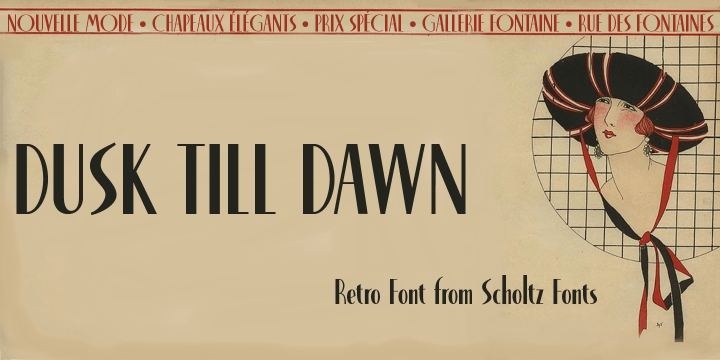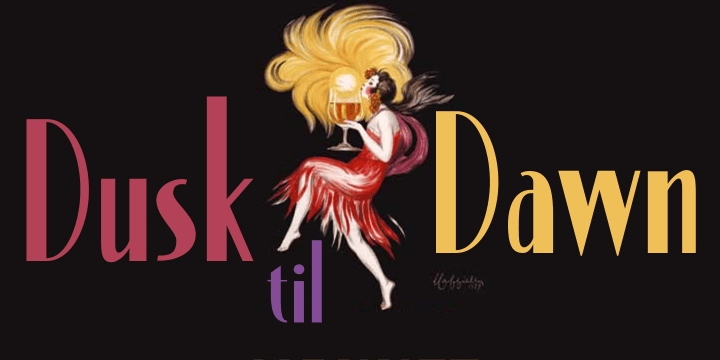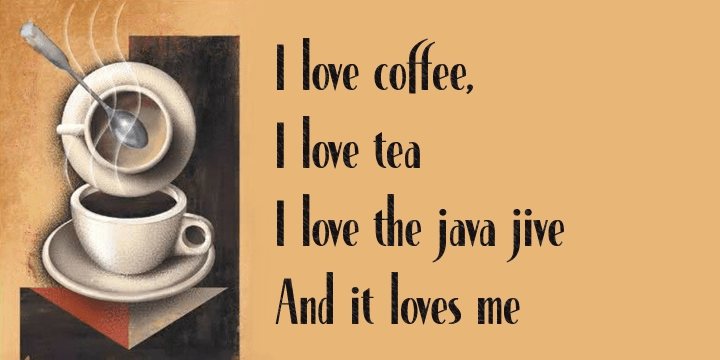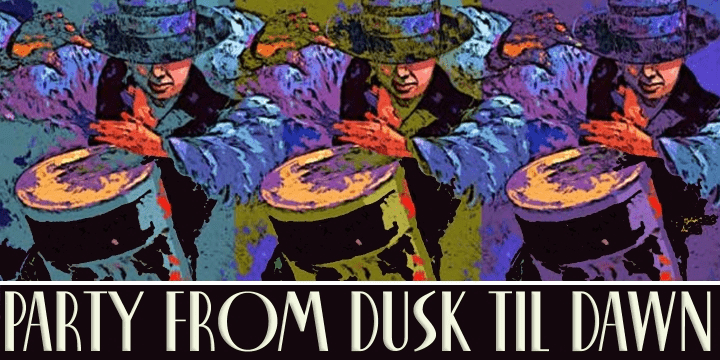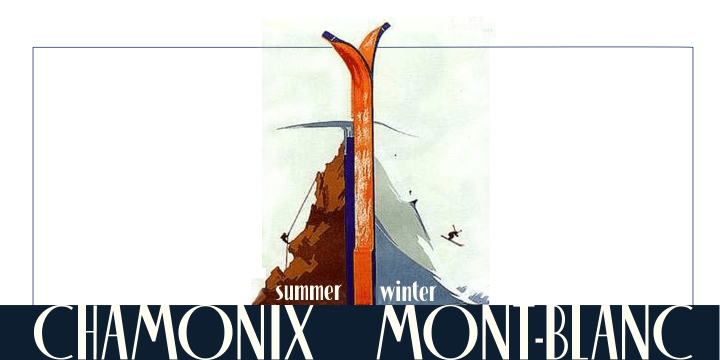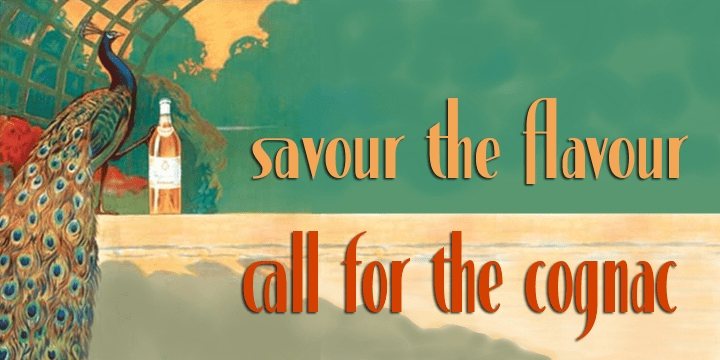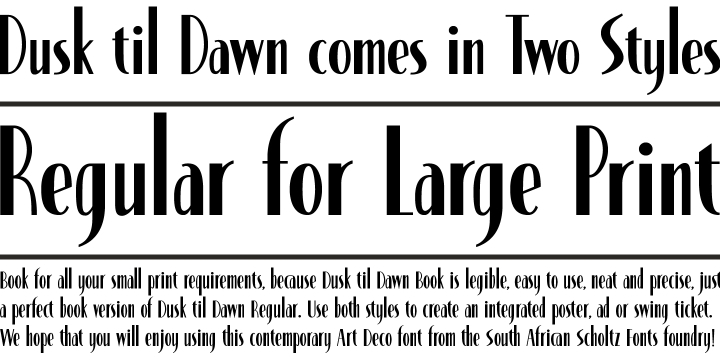
Dusk Til Dawn
Buy NowAs with Nocturne, Dusk til Dawn recalls the romantic, sophisticated Zeitgeist of the early 20th century, that nostalgic time ?between the wars?. It as a number of attractive ligatures and upper-case alternates.
I have used Nocturne as a basis for Dusk til Dawn, given the font really bold down-strokes, reduced the width of some upper case characters and changed the shape of many lower case characters.
Dusk til Dawn Regular, which uses the Art Deco convention of small x height, and long ascenders. This Display style is perfect for headers, posters, labels etc.
Dusk til Dawn Book, which, with its higher x-height and slightly wider characters, is extremely legible and suitable for longer passages of smaller size text.